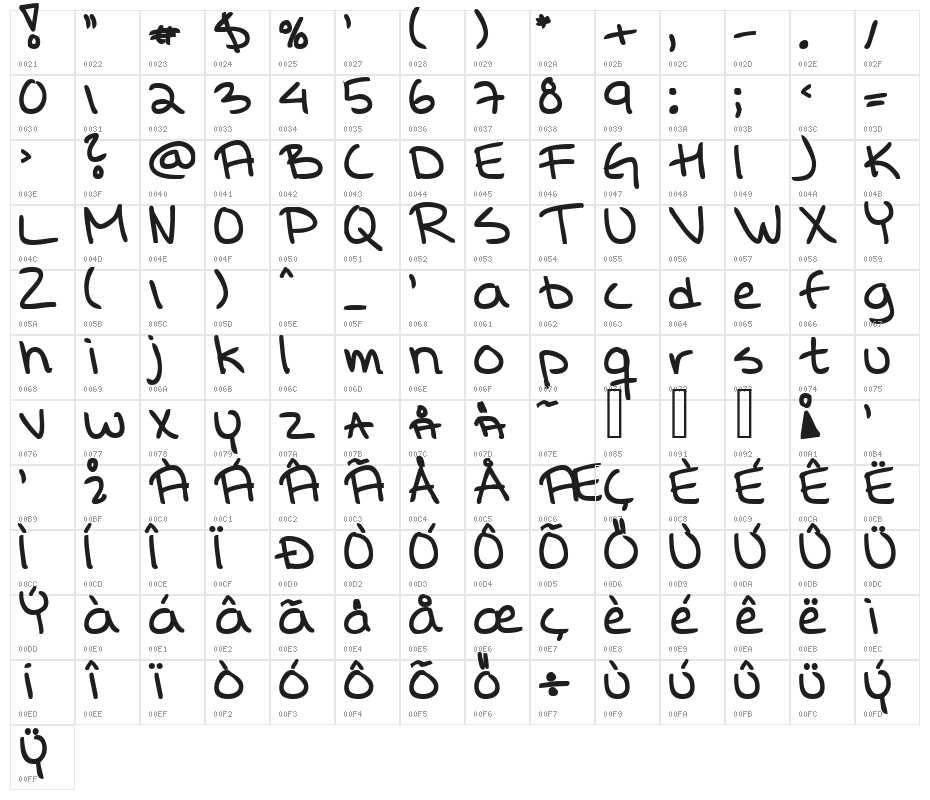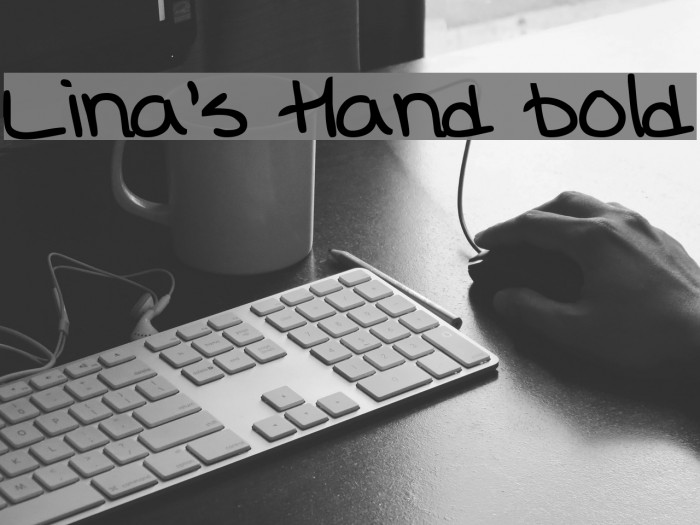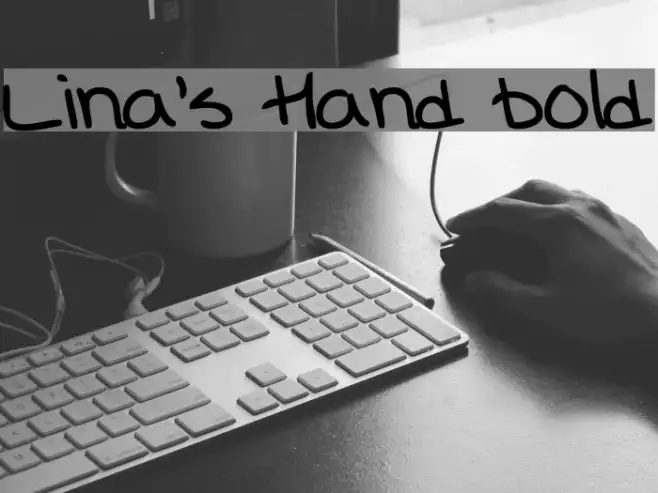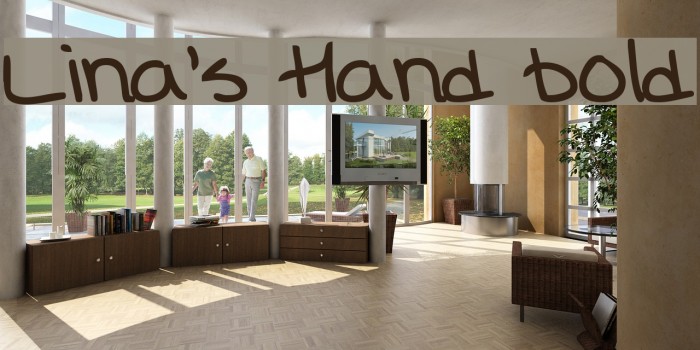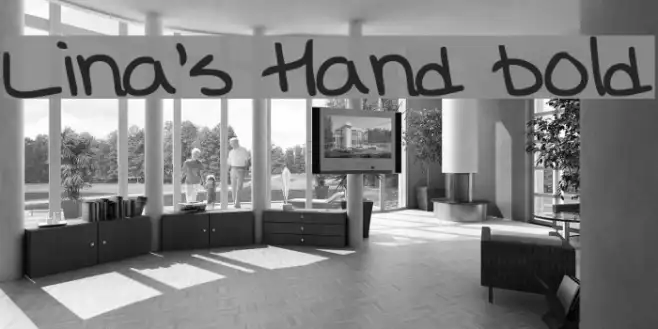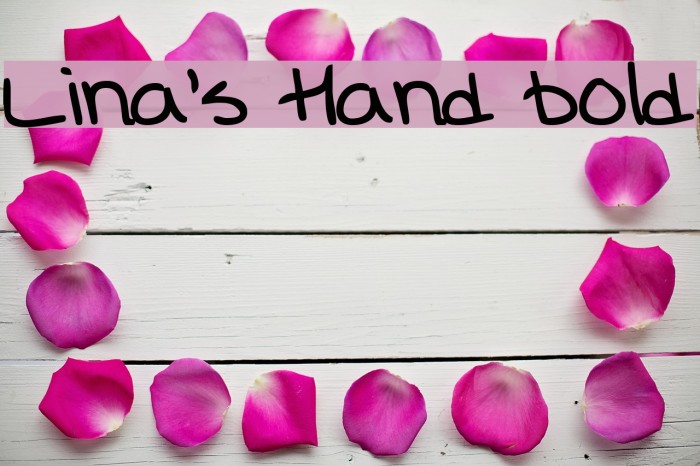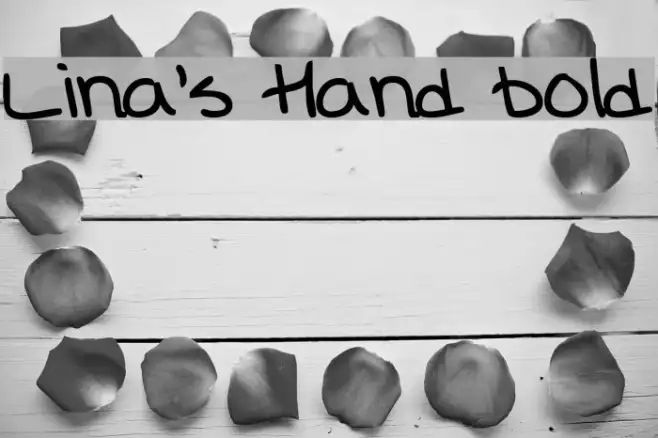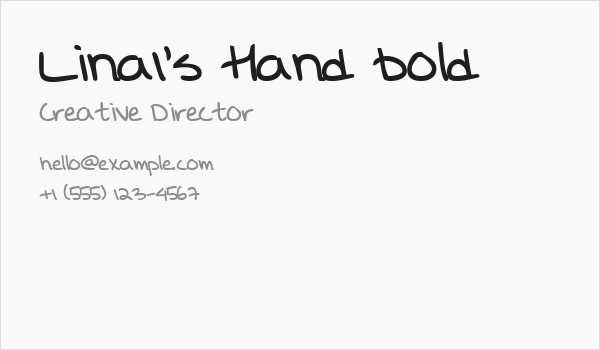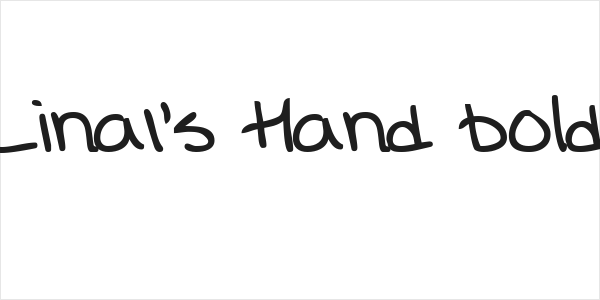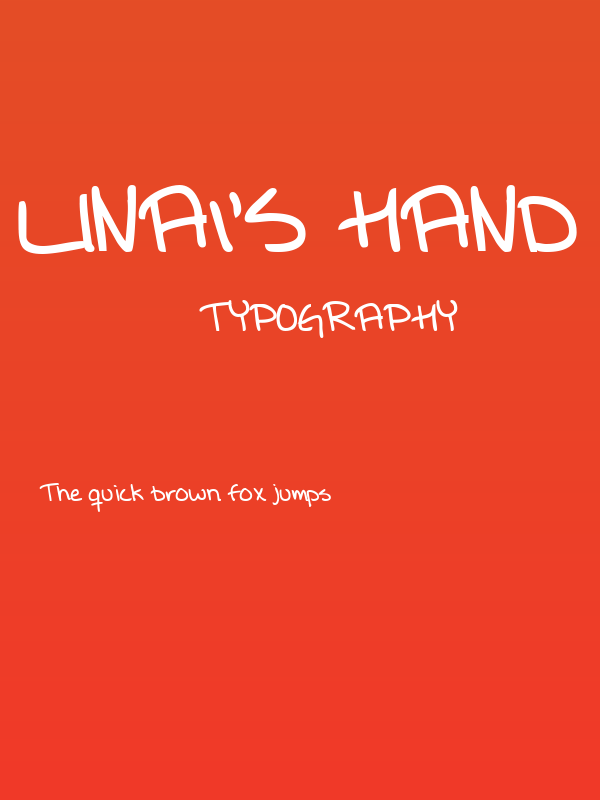
Lina's Hand bold Font
Lina's Hand bold Description
This font exhibits a playful and casual handwritten style, characterized by its bold and expressive strokes. The letters are slightly slanted, giving a dynamic and informal appearance. The uppercase and lowercase letters maintain a consistent flow, with rounded edges and varying stroke widths that add to its handwritten charm. The numerals and special characters follow the same style, ensuring uniformity throughout. This font is ideal for projects that require a personal touch, such as invitations, greeting cards, or creative branding. Its boldness ensures readability while maintaining a friendly and approachable aesthetic.
| Proposed Projects | Ideal for invitations, greeting cards, personal branding, and creative projects. |